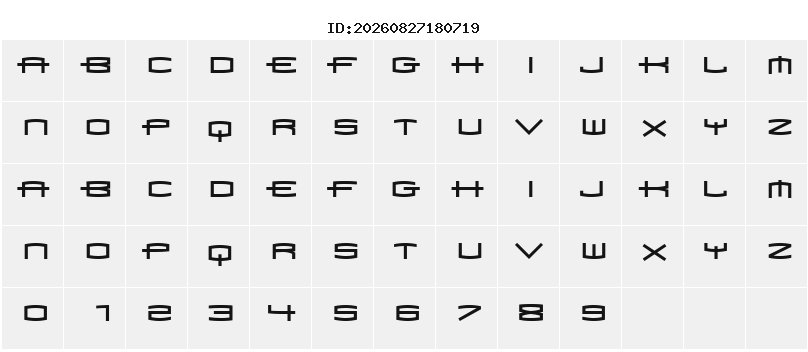
tsp 1979 1.ttf is a modern, elegant sans-serif font designed for ultimate readability and visual harmony. Perfect for branding, headlines, web design, and print materials.